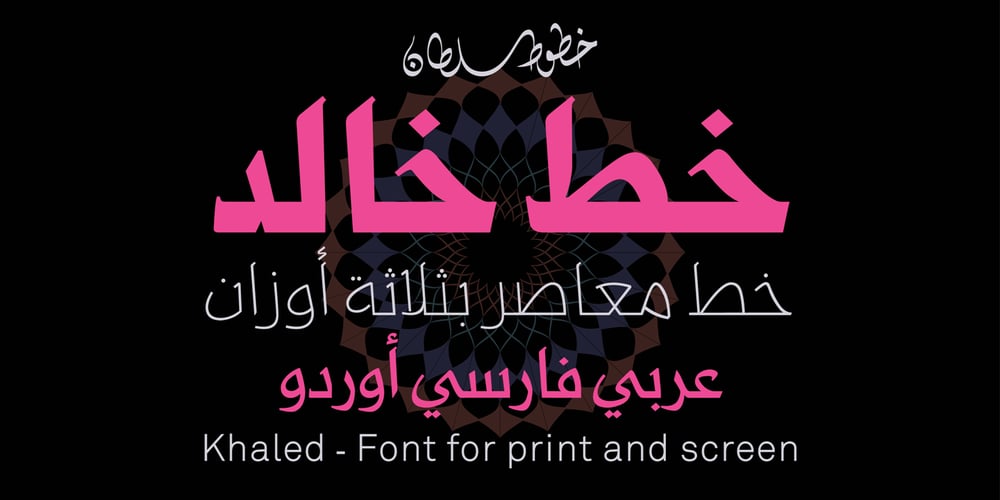
SF Khaled Font Family was designed by Sultan Maqtari and published by Sultan Fonts. SF Khaled contains 3 styles and family package options. About this font family: Khaled Typeface for different titles and manchites. Khaled is An Arabic typeface for desktop applications, for websites. Khaled font family is Modern style and contains 3 weights: Regular, Medium and Bold. The font includes support for Arabic, Persian, and Urdu. It also includes proportional and tabular numerals for the supported languages. Khaled typeface comes with many opentype features. Designer: Sultan Maqtari Design date: 2019 Publisher: Sultan Fonts